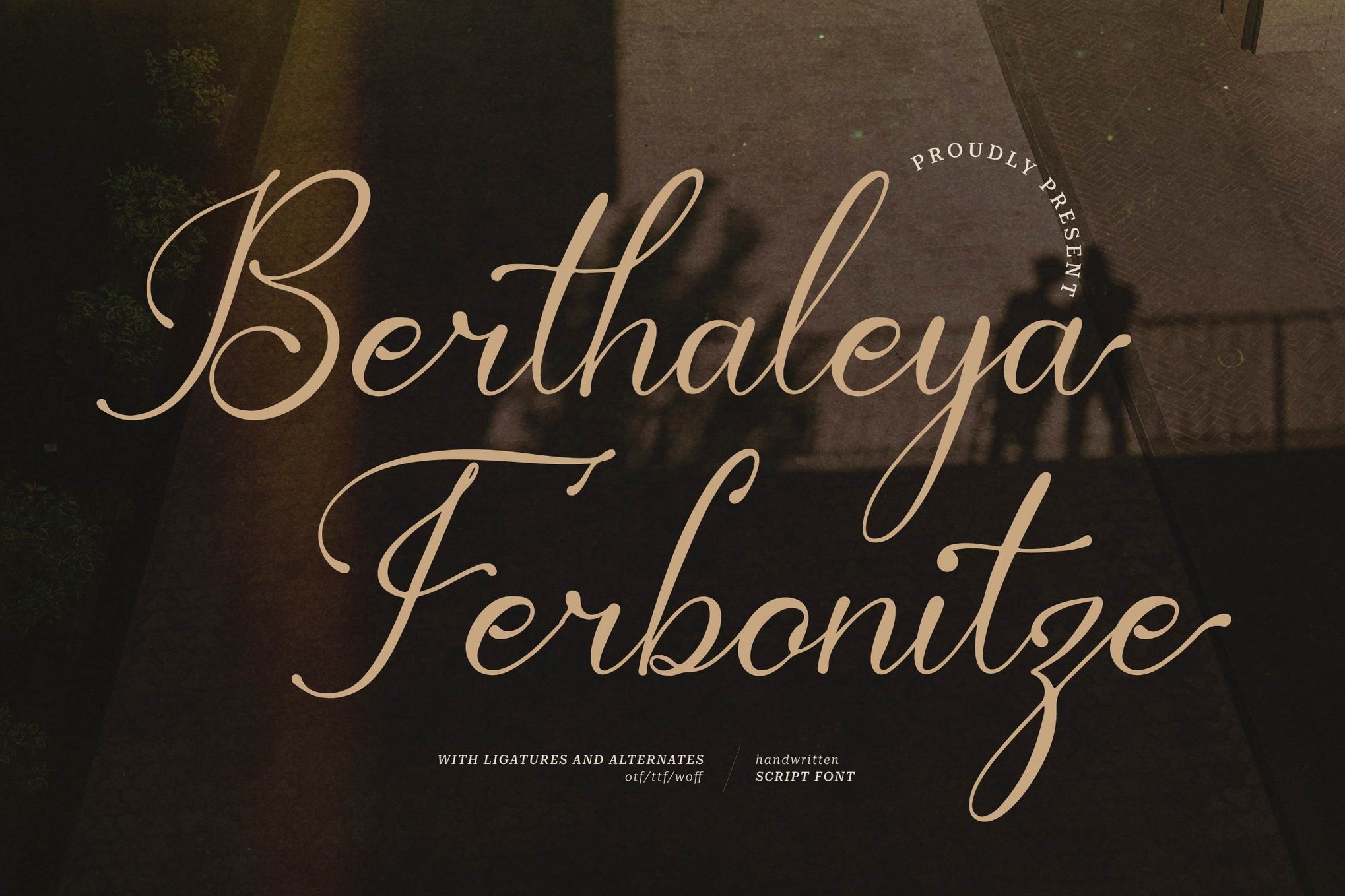
Berthaleya Ferbonitze – Elegant Script Font
Berthaleya Ferbonitze – Elegant Script Font is a stylish typeface that enhances visual appeal and works effortlessly in many design contexts. Berthaleya Ferbonitze | Calligraphy , from Denustudios, suitable for any projects such as: logos, branding projects, homeware designs, product packaging, mugs, quotes, posters, shopping bags, t-shirts, book covers, name card, invitation cards, greeting cards, label, photography, watermark, special events, and all your other lovely projects that need a beautiful script taste.